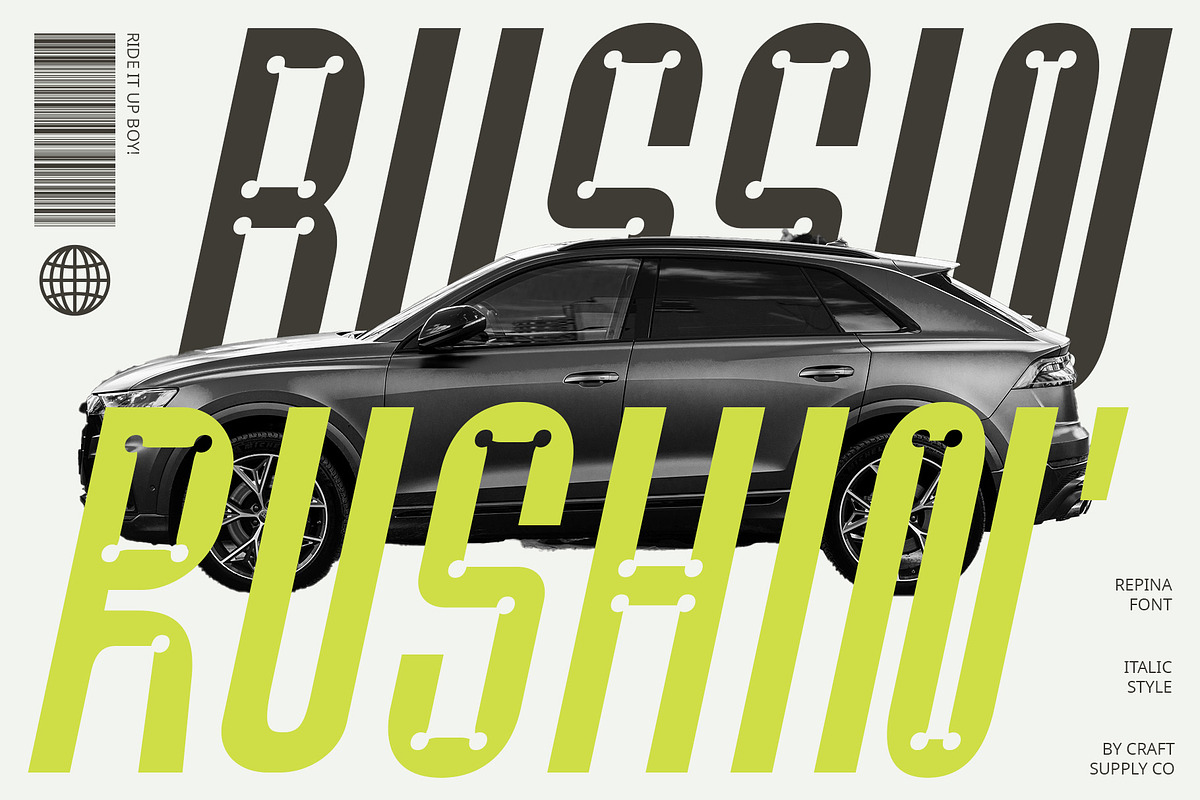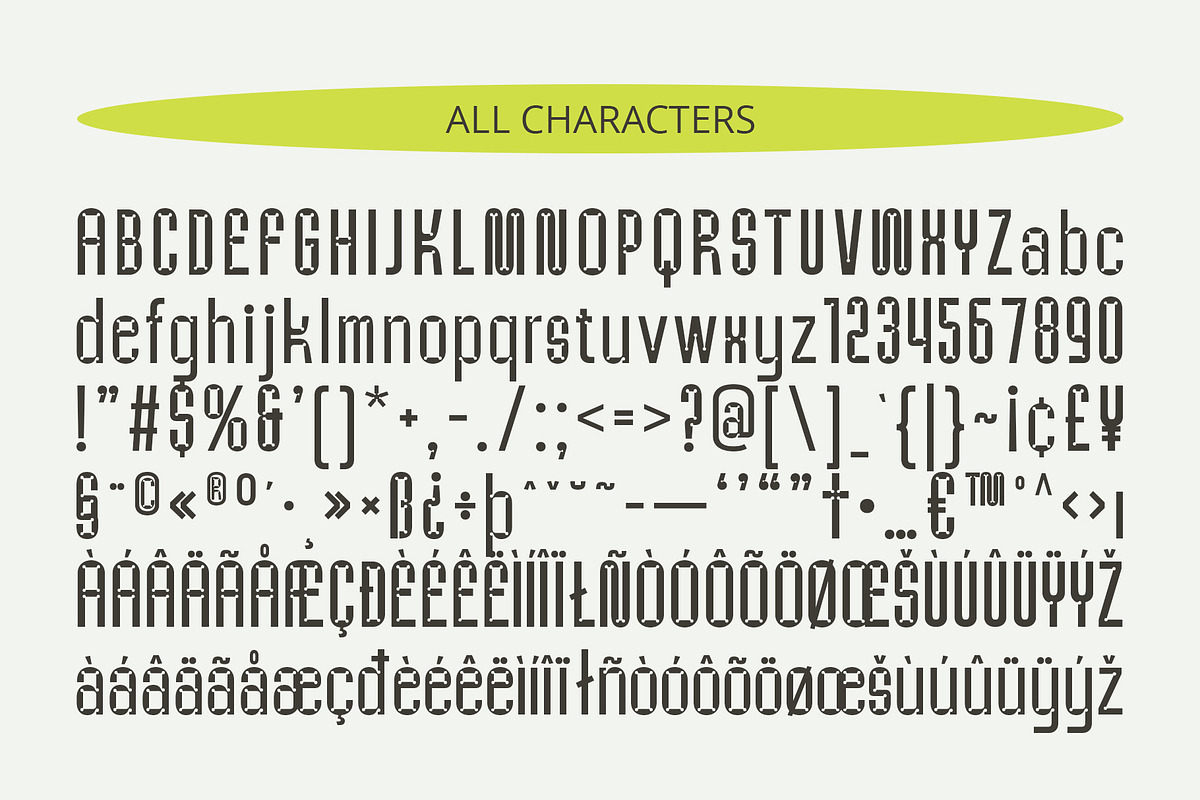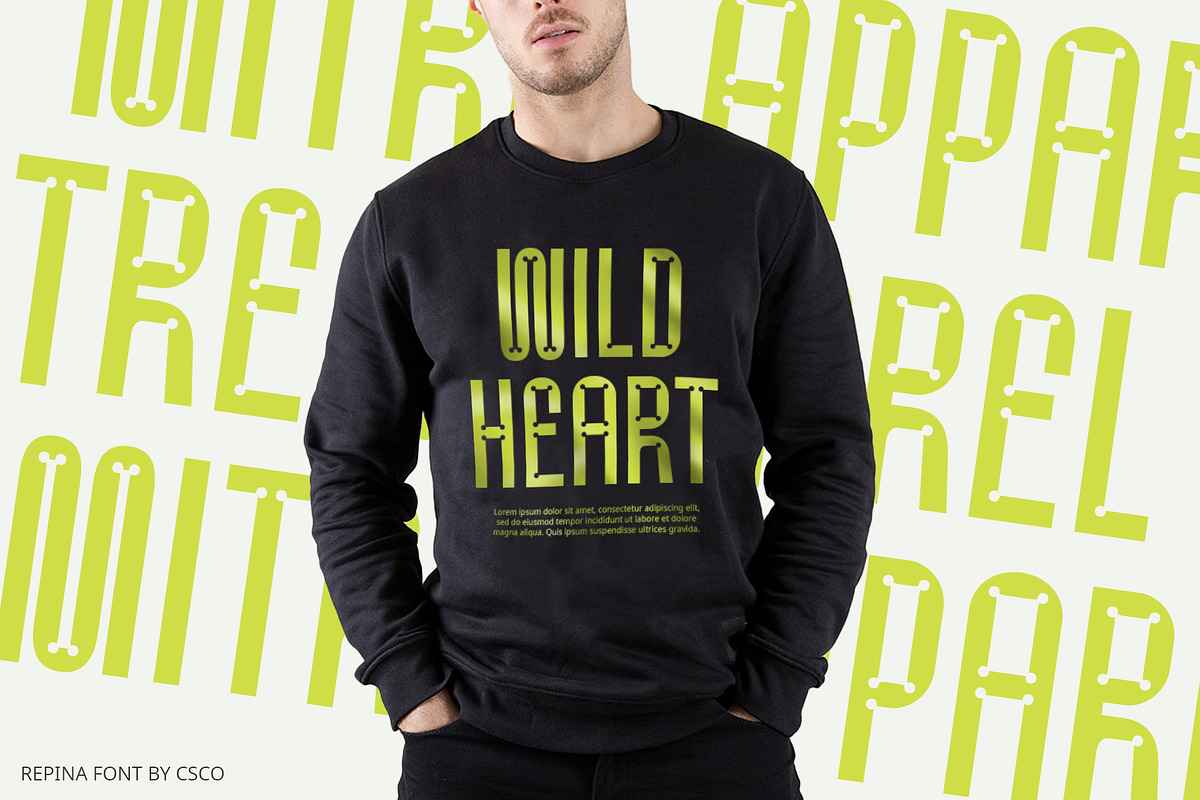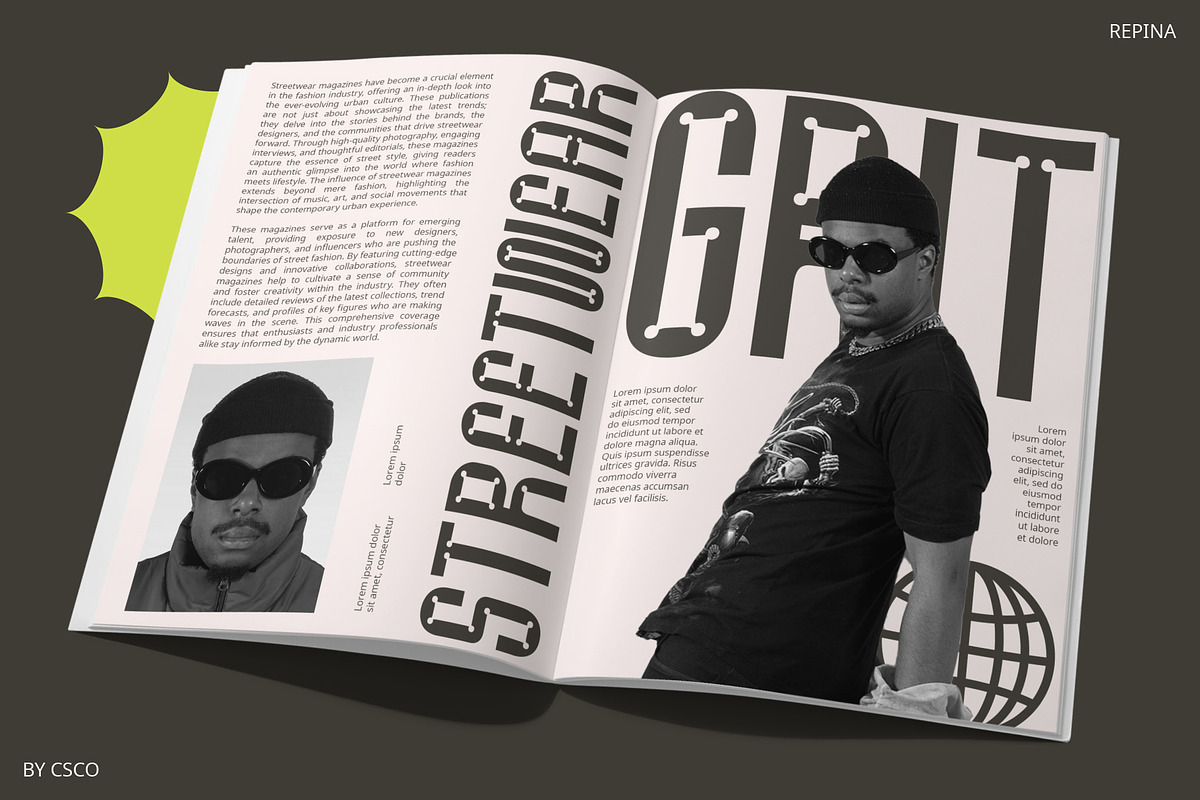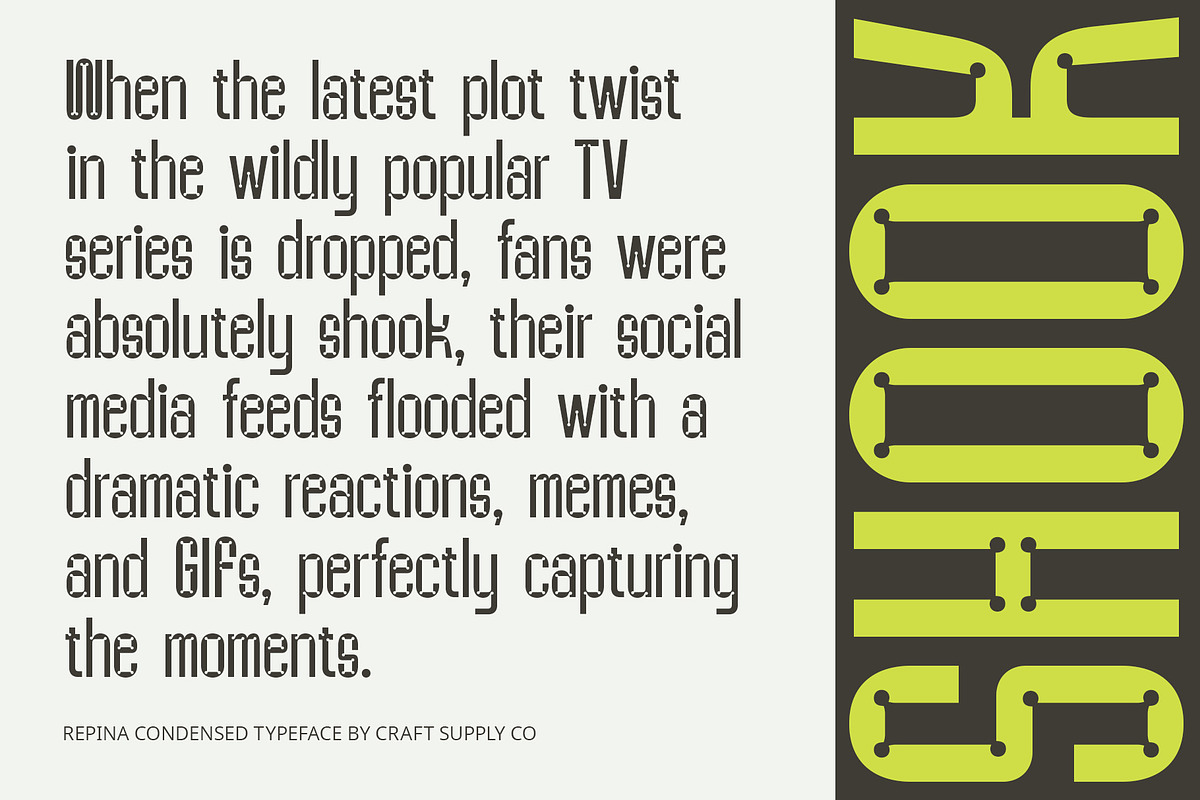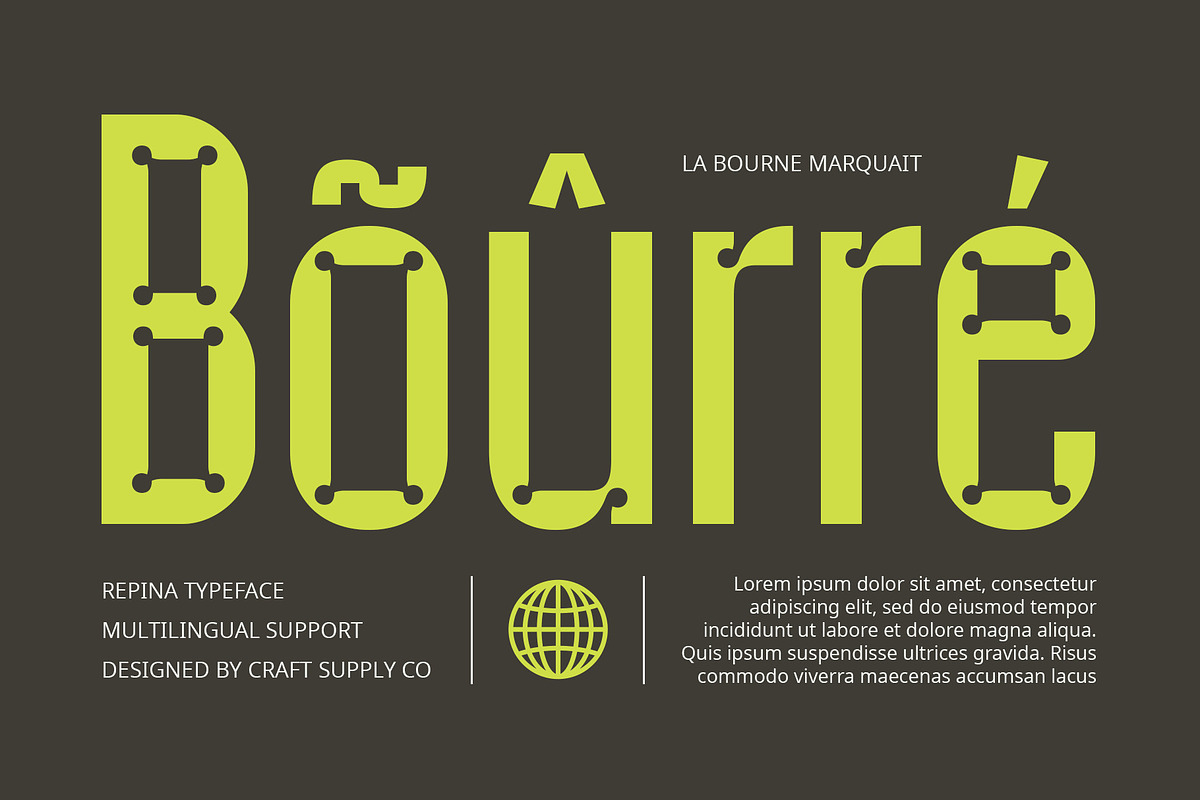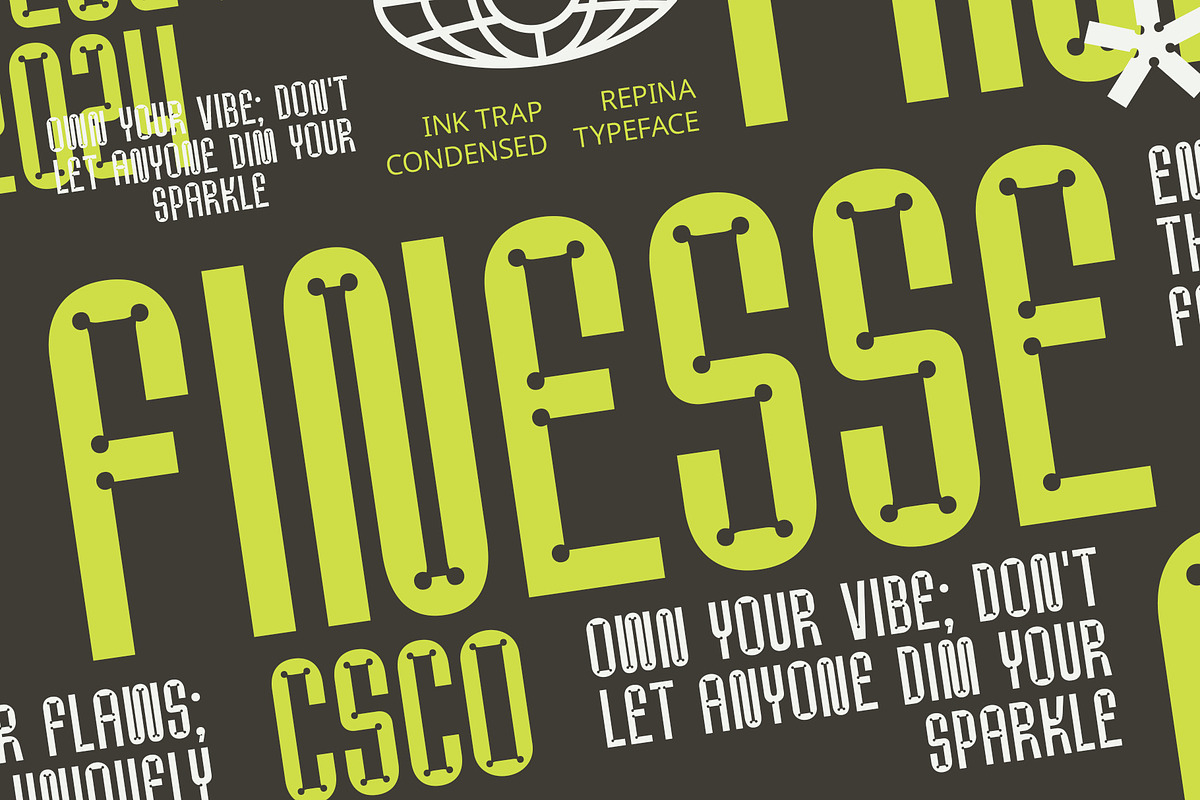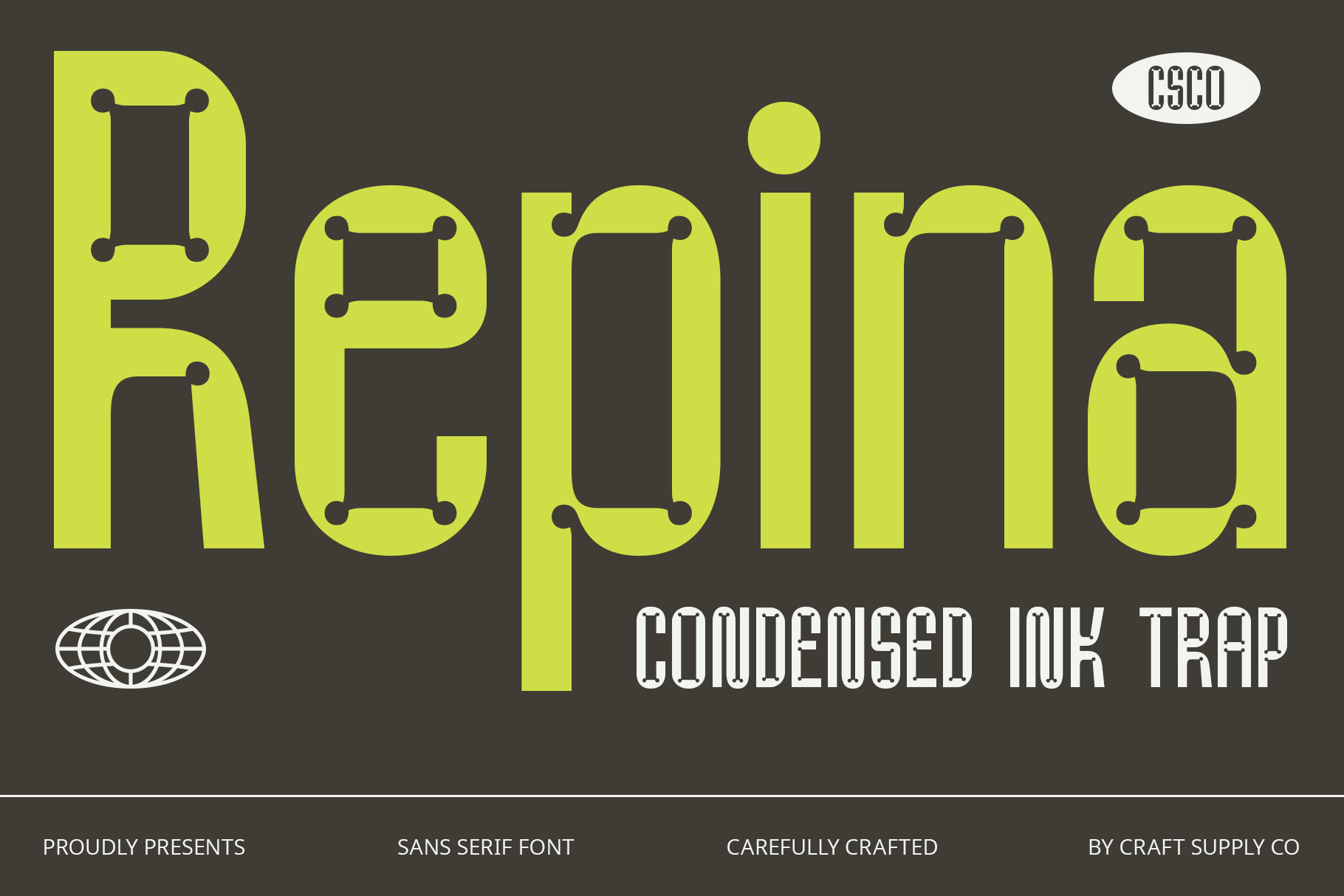
Repina – Inktrap Font
Repina – Inktrap Font: Precision and Clarity in Modern Design
Condensed Sans Serif Font with Inktrap
Repina is a sophisticated condensed sans serif font featuring precise inktrap details. Designed to maintain clarity and readability, even at smaller sizes, this font combines sharp, modern characteristics with subtle inktraps at the ends of letter strokes.
Enhanced Clarity with Inktrap
The inktrap details in Repina ensure that each character maintains its sharpness and legibility, making it ideal for various design applications where clarity is paramount. Whether used in headlines, logos, or packaging, Repina’s inktraps add a touch of refinement and professionalism.
Versatile and Modern
Despite its condensed form, Repina offers versatility across different design projects. Its clean lines and balanced proportions make it suitable for editorial layouts, branding materials, and digital interfaces, where a modern and sleek aesthetic is desired.
Perfect for Small Sizes
Designed with attention to detail, Repina excels in maintaining clarity even in smaller sizes. The inktrap technique enhances the font’s readability without sacrificing its contemporary appeal, ensuring a seamless visual experience across all applications.
Ideal for Modern Designers
For designers seeking a blend of precision, clarity, and modern aesthetics, Repina is the perfect choice. Whether crafting corporate identities or editorial designs, this font delivers a polished and sophisticated look that elevates any project.